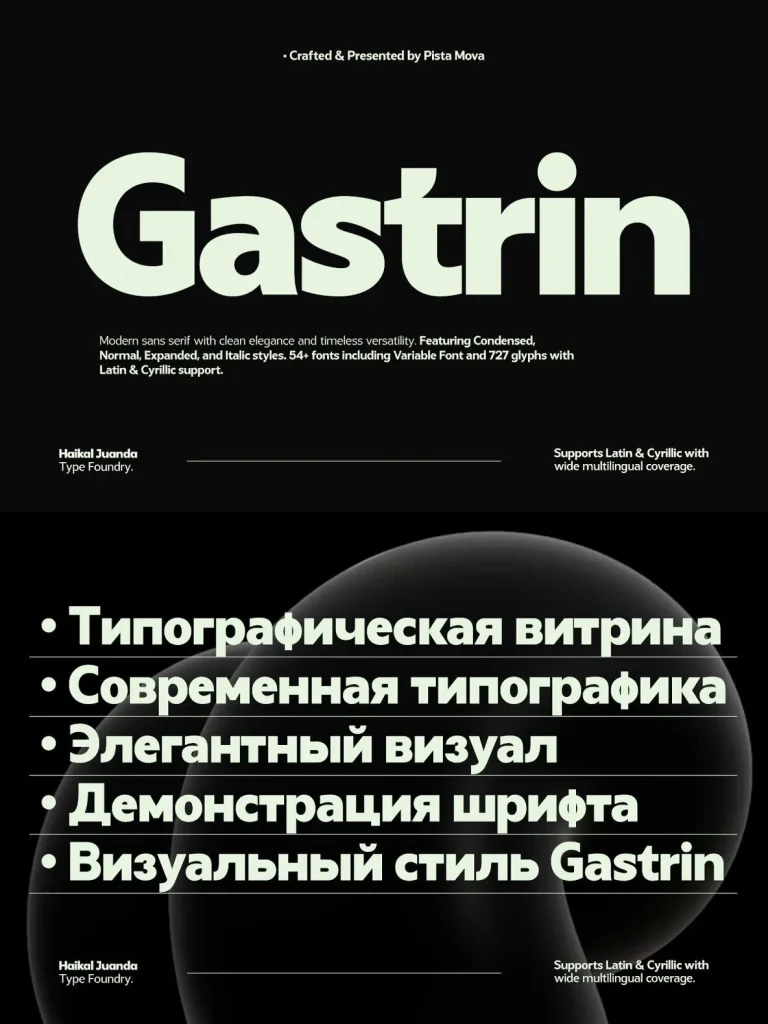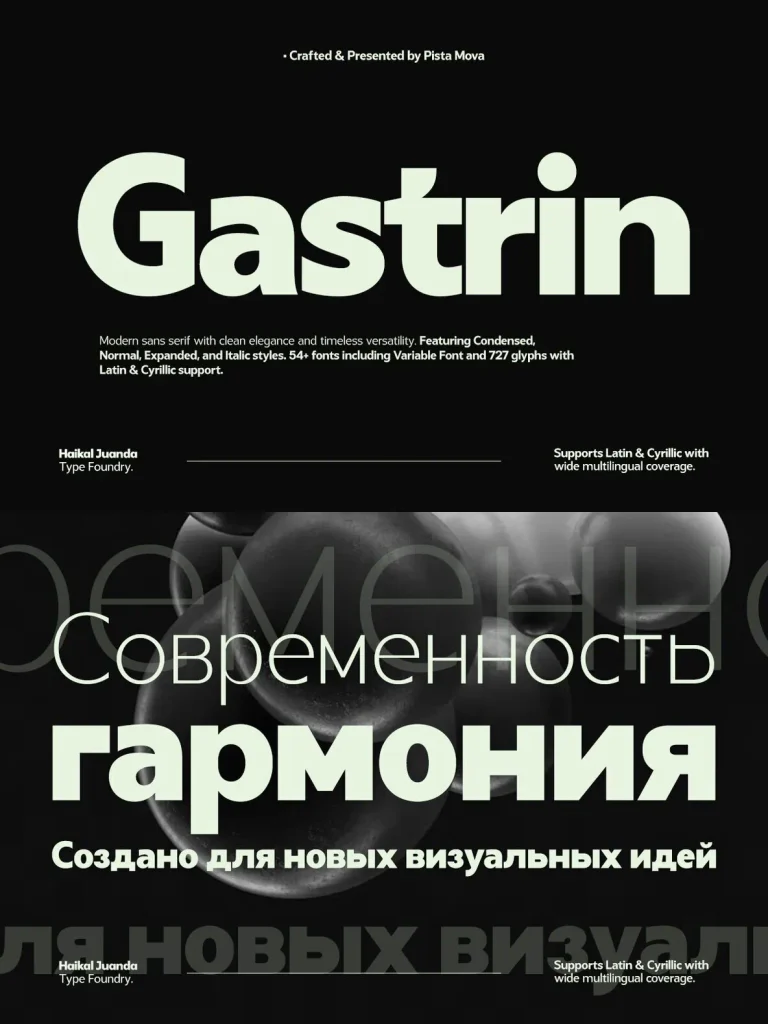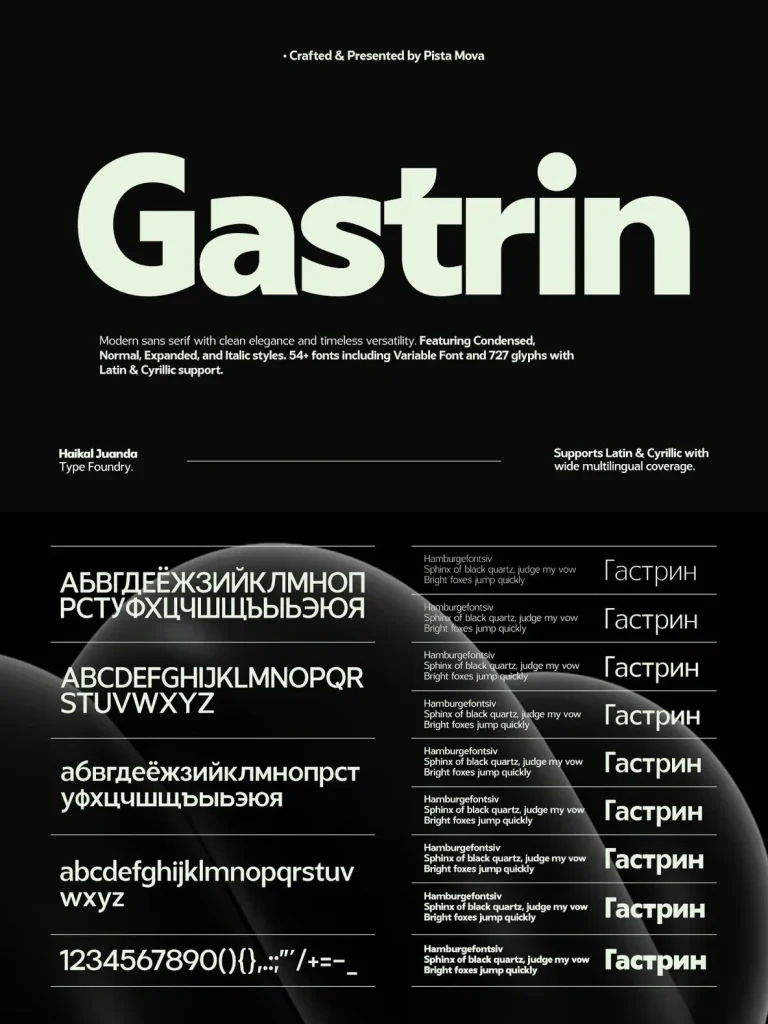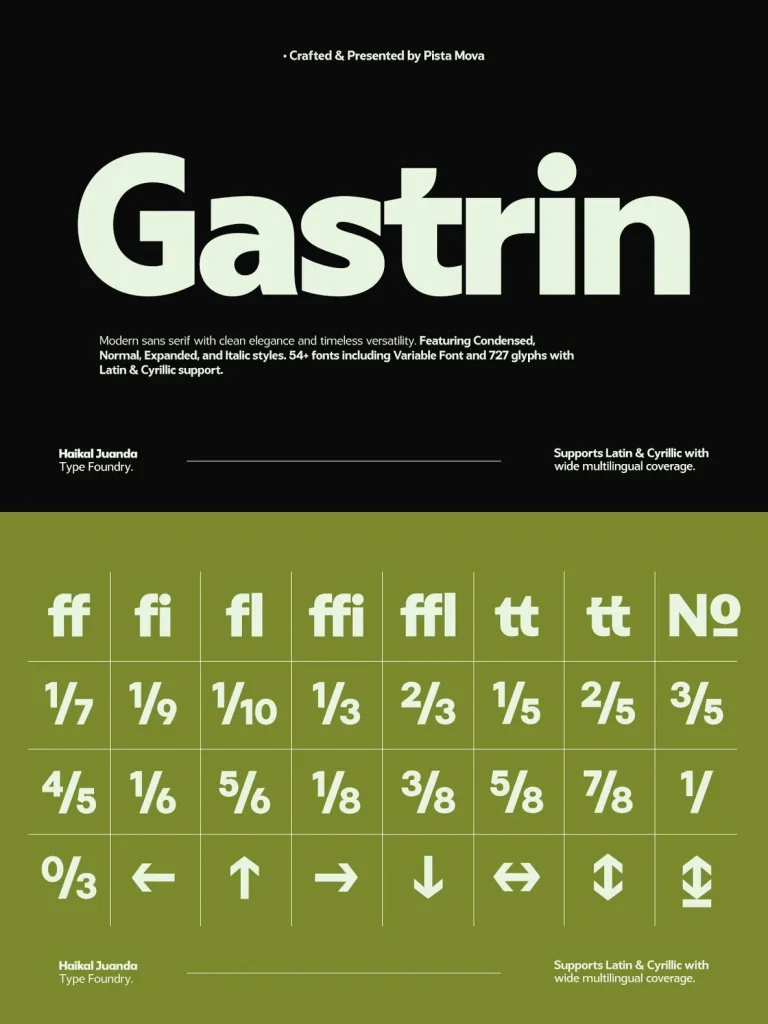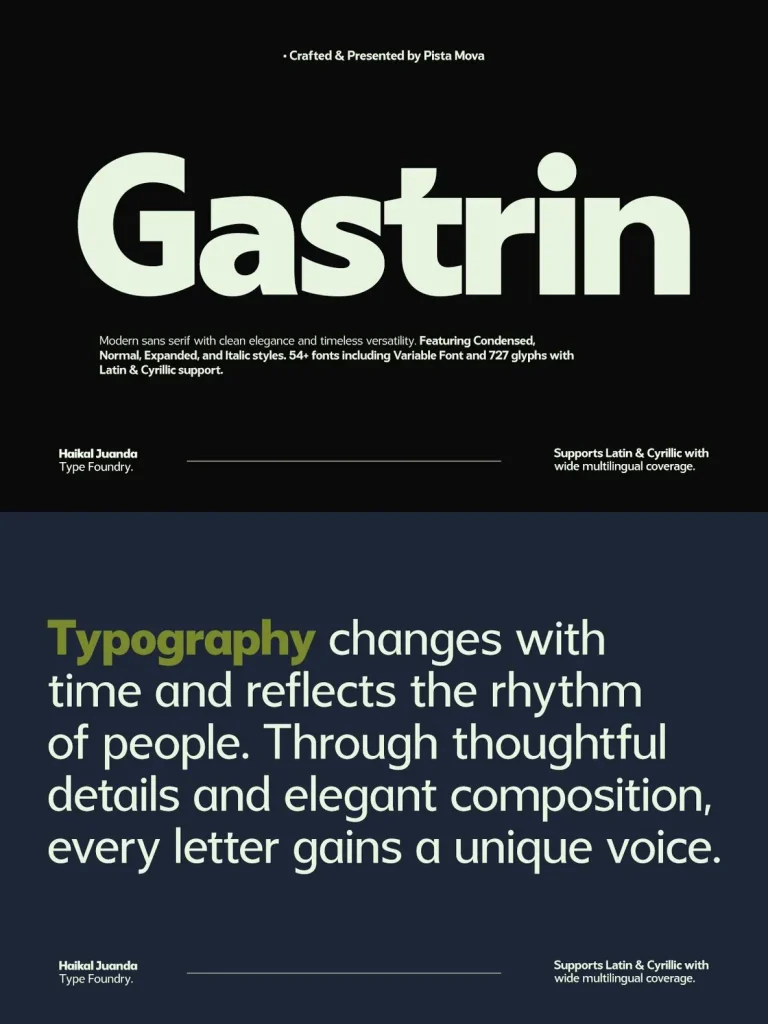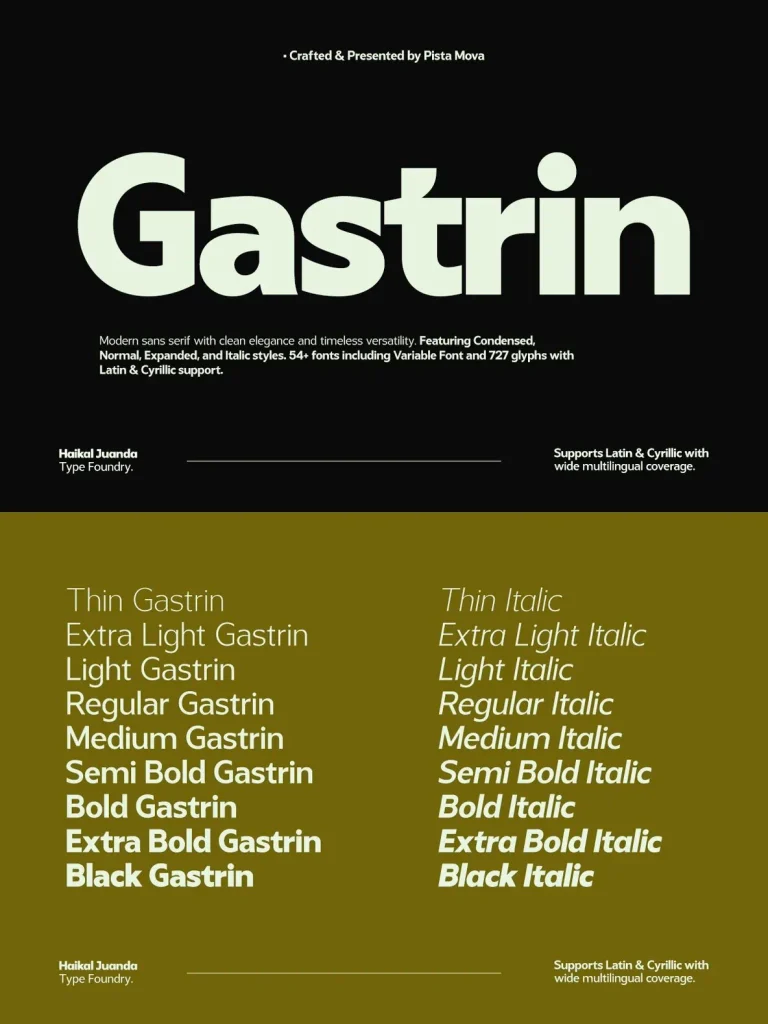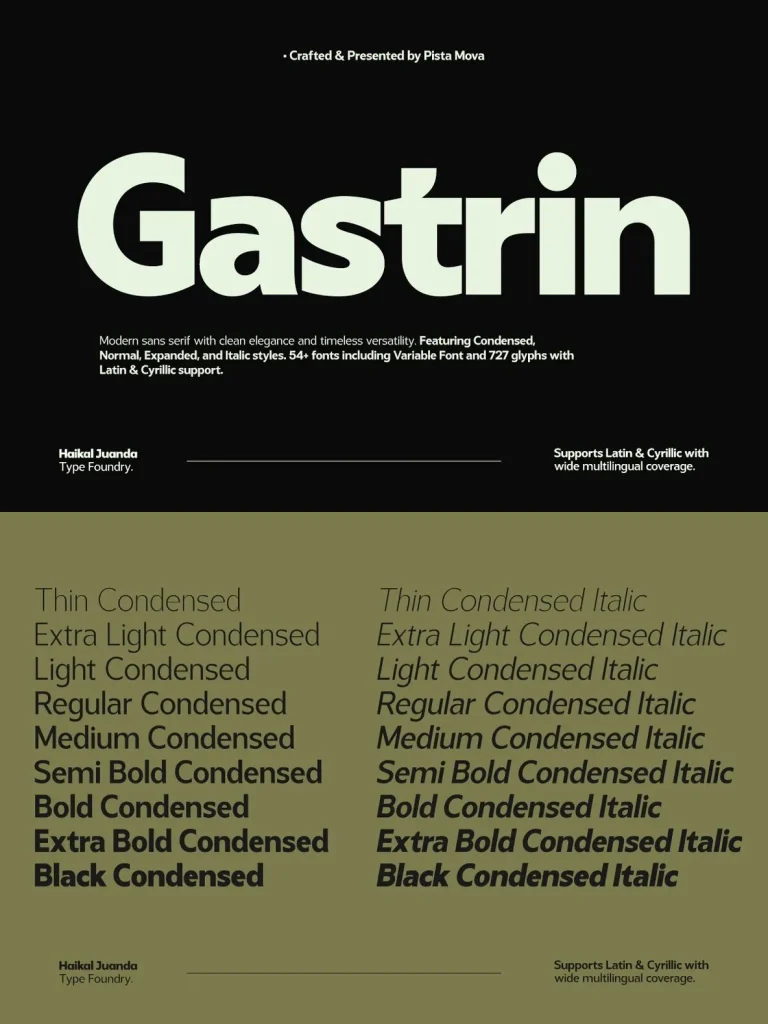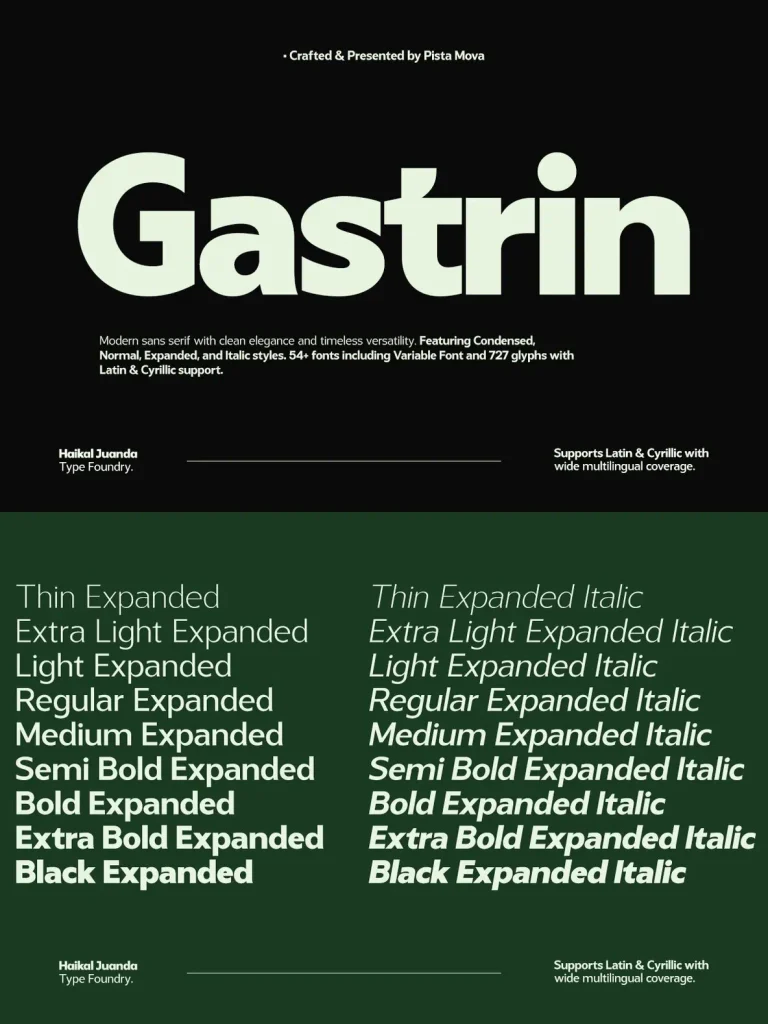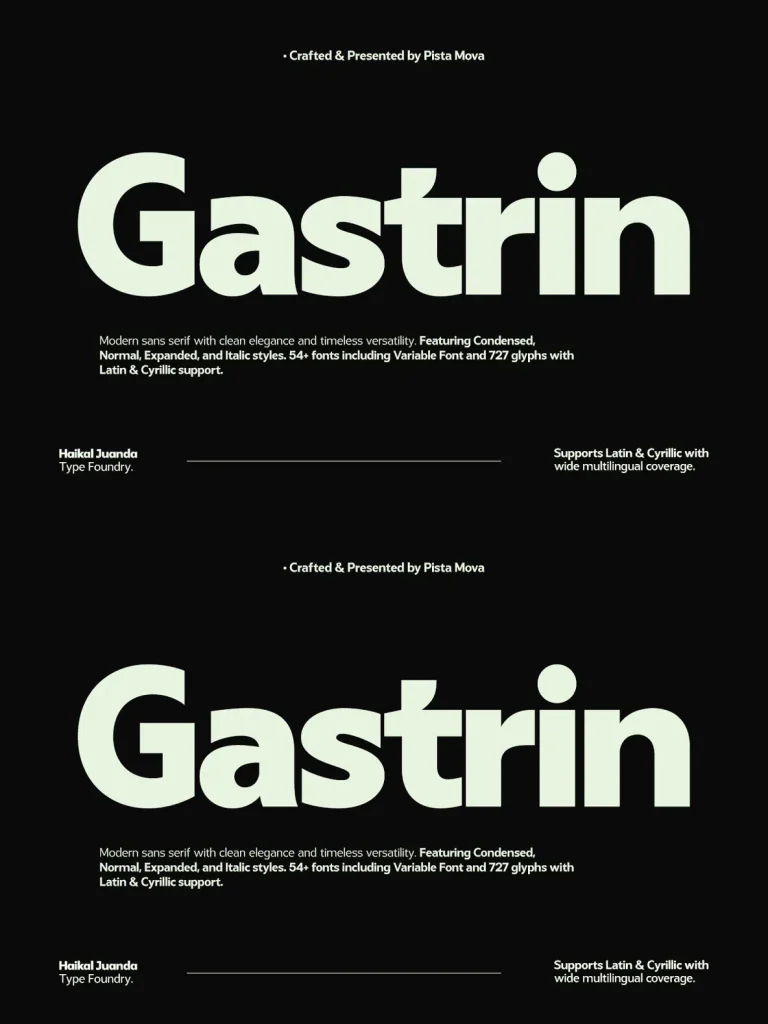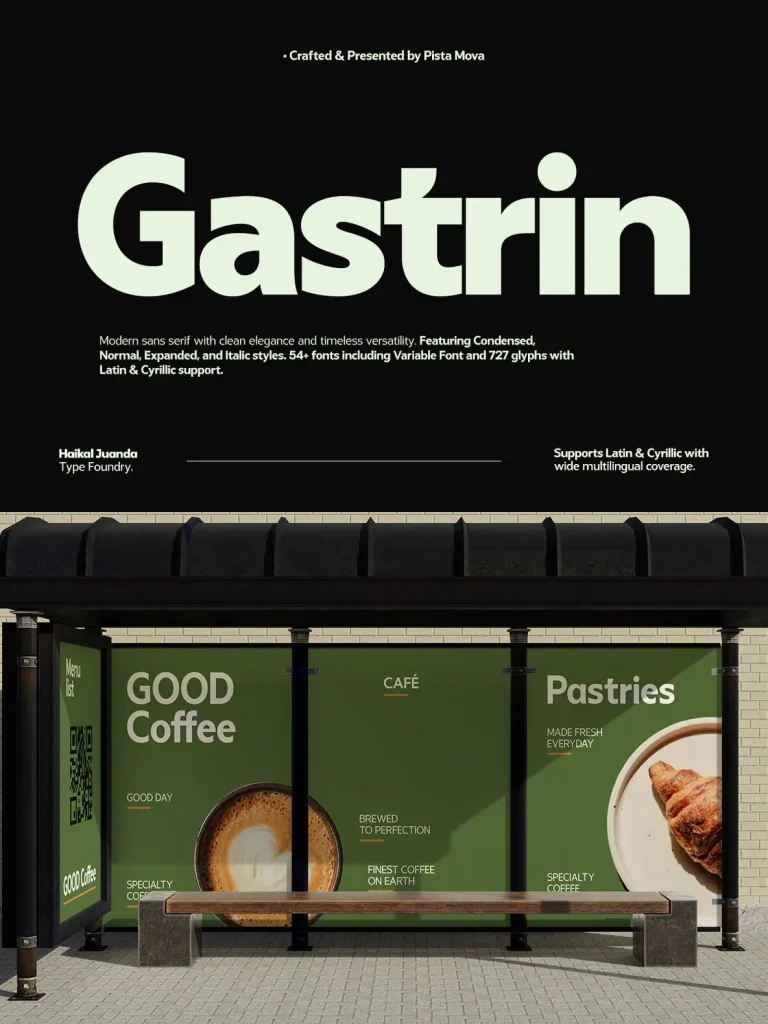
Gastrin — Precision with Quiet Authority
Gastrin is a modern sans serif typeface built around precision, clarity, and contemporary aesthetics. It delivers a clean, refined visual tone through balanced proportions, smooth curves, and elegant geometric details. The result is a timeless professional appearance suited to a wide range of creative work, from structured identity systems to polished editorial design.
From Thin to Black, every weight is carefully developed to maintain consistency, readability, and visual harmony across all styles. Gastrin works well for branding, editorial layouts, posters, websites, packaging, social media content, UI design, presentations, and contemporary visual identities. Use it for bold headlines or clean body text; in print and digital applications, it keeps a modern, sophisticated character.
Its minimalist design approach lets Gastrin adapt naturally to current visual trends while retaining a strong, distinctive personality. Clean spacing, smooth letterforms, and balanced construction support professional compositions with an elegant visual rhythm. Multilingual support includes extended Latin and Cyrillic character sets, making Gastrin suitable for international communication, global branding, and multilingual design projects.
Featuring Condensed, Normal, Expanded, Condensed Italic, Italic and Expanded Italic styles
727 glyphs with extensive character support
Latin & Cyrillic language support